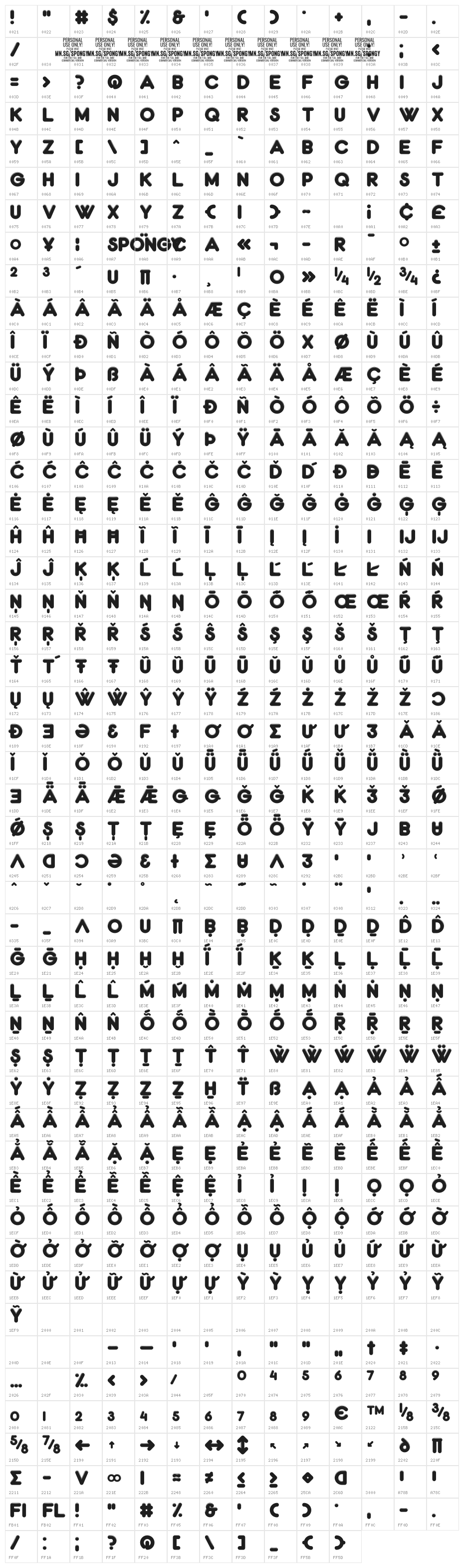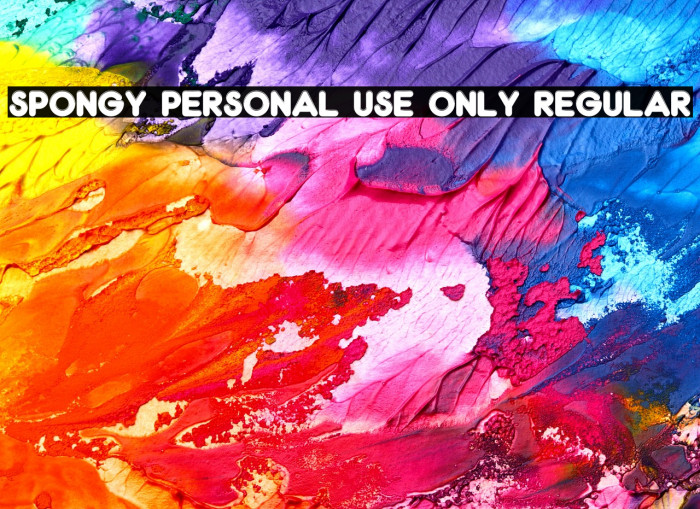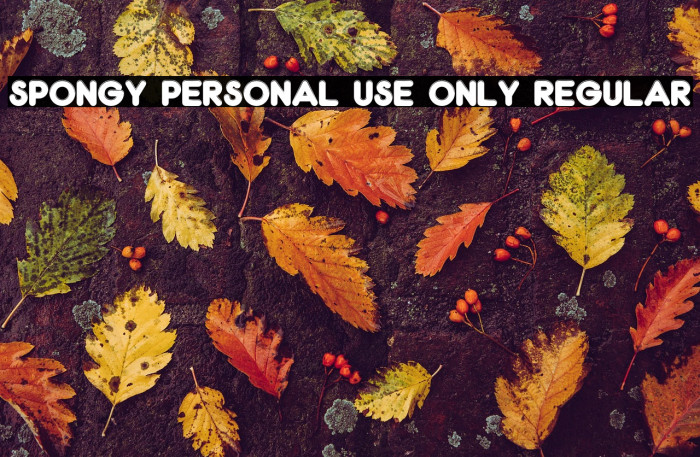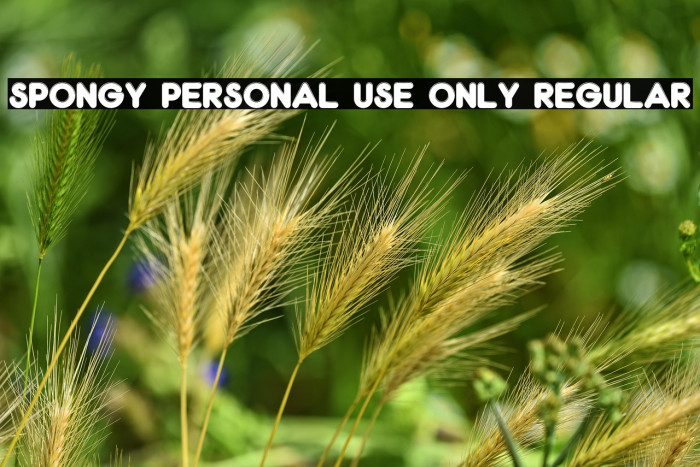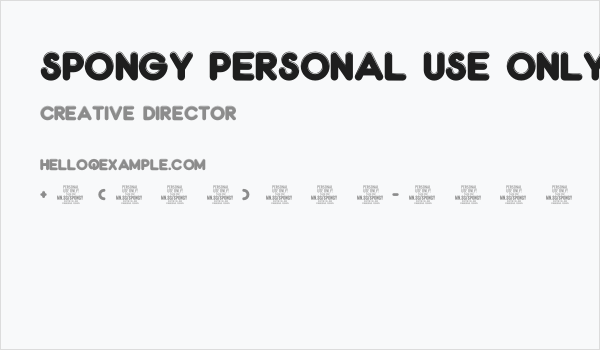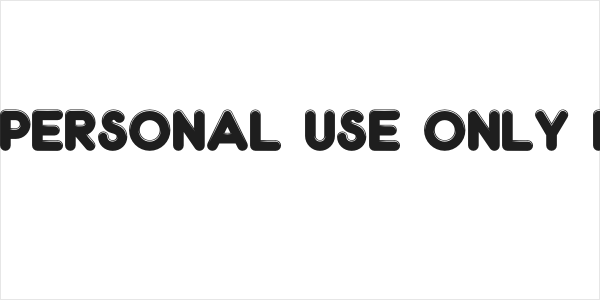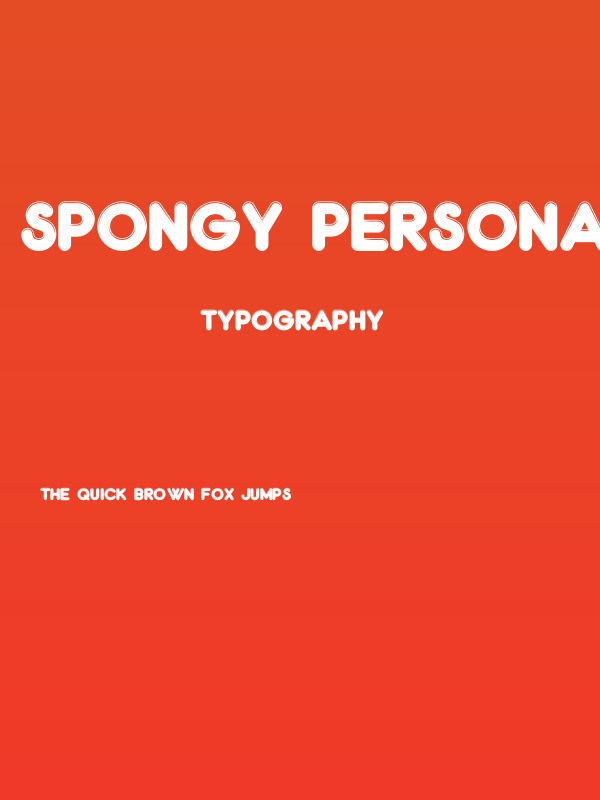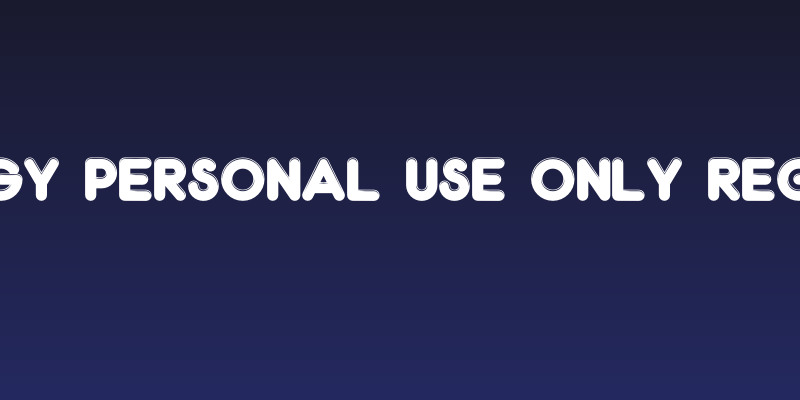
Spongy PERSONAL USE ONLY Regular Font
Spongy PERSONAL USE ONLY Regular Description
This font features a bold, playful design with rounded edges and a thick, uniform stroke. The characters are evenly spaced and have a consistent weight, giving them a cohesive and balanced appearance. The style is reminiscent of retro or vintage aesthetics, making it ideal for projects that require a touch of nostalgia or fun. The uppercase and lowercase letters maintain a similar width, enhancing readability while adding a unique charm. The special characters are creatively designed to match the overall theme, ensuring a harmonious look across all text elements.